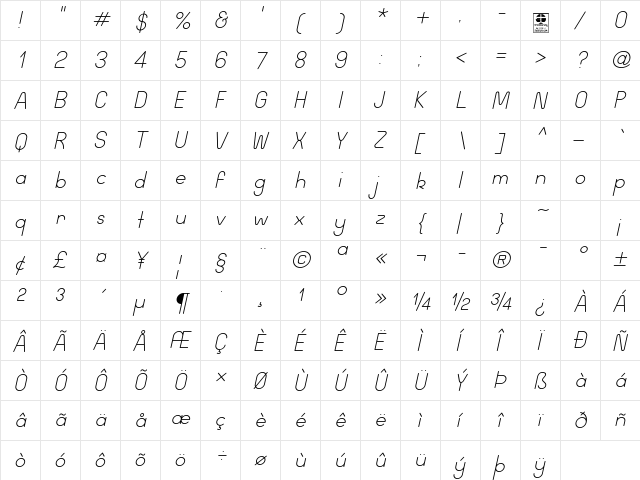
Wida Round Light Demo Italic Font Preview
Design Context for Wida Round Light Demo Typeface
Wida Round Light Demo softens its letterforms with rounded terminals, giving it an approachable, friendly quality that works well in consumer-facing and digital contexts. The dynamic lean of this cut emphasises speed and emphasis in any layout. The delicate stroke weight brings airiness and refinement to layouts.
Well-suited to UI design, mobile interfaces, and any brand that wants approachability without sacrificing clarity.
Font Pairing: Pairs well with a rounded or humanist sans for body copy, maintaining the friendly tone without relying on Wida Round Light Demo to carry extended reading.
Pro Tip: Use Wida Round Light Demo for UI elements, app interfaces, and anywhere a friendly, approachable tone needs to be maintained without sacrificing clarity.